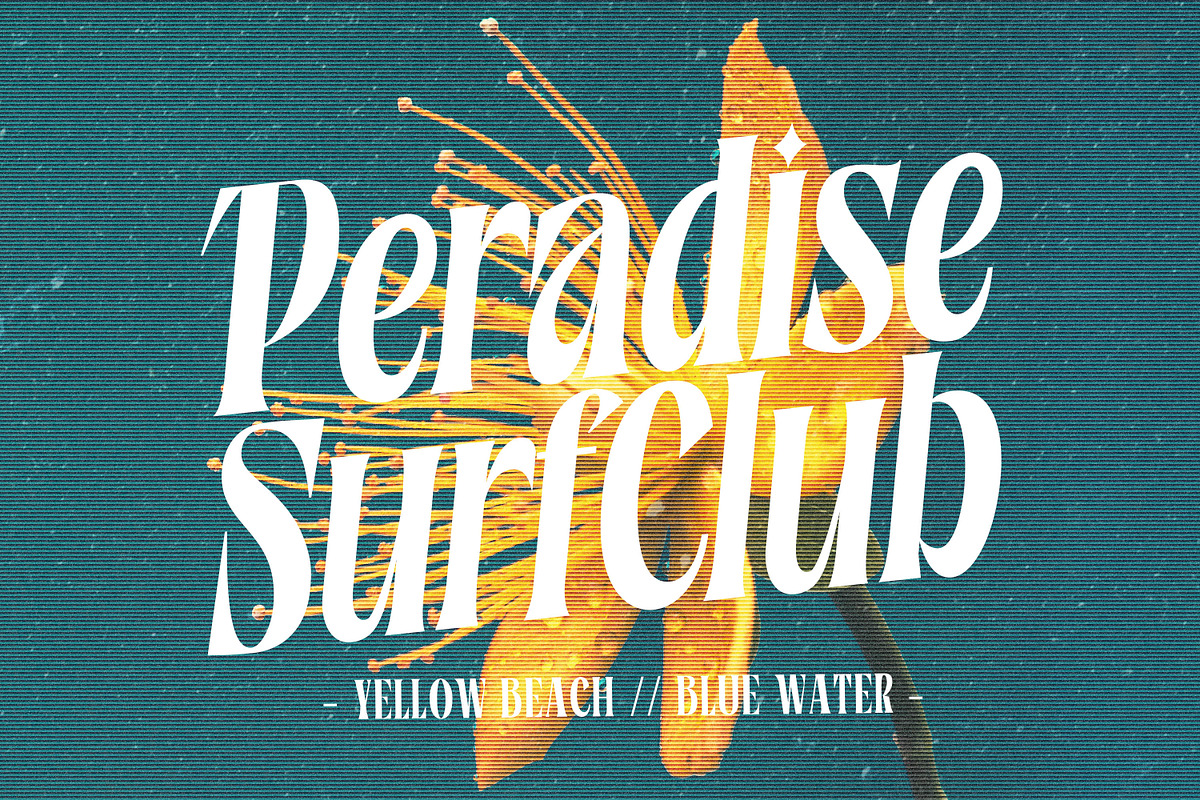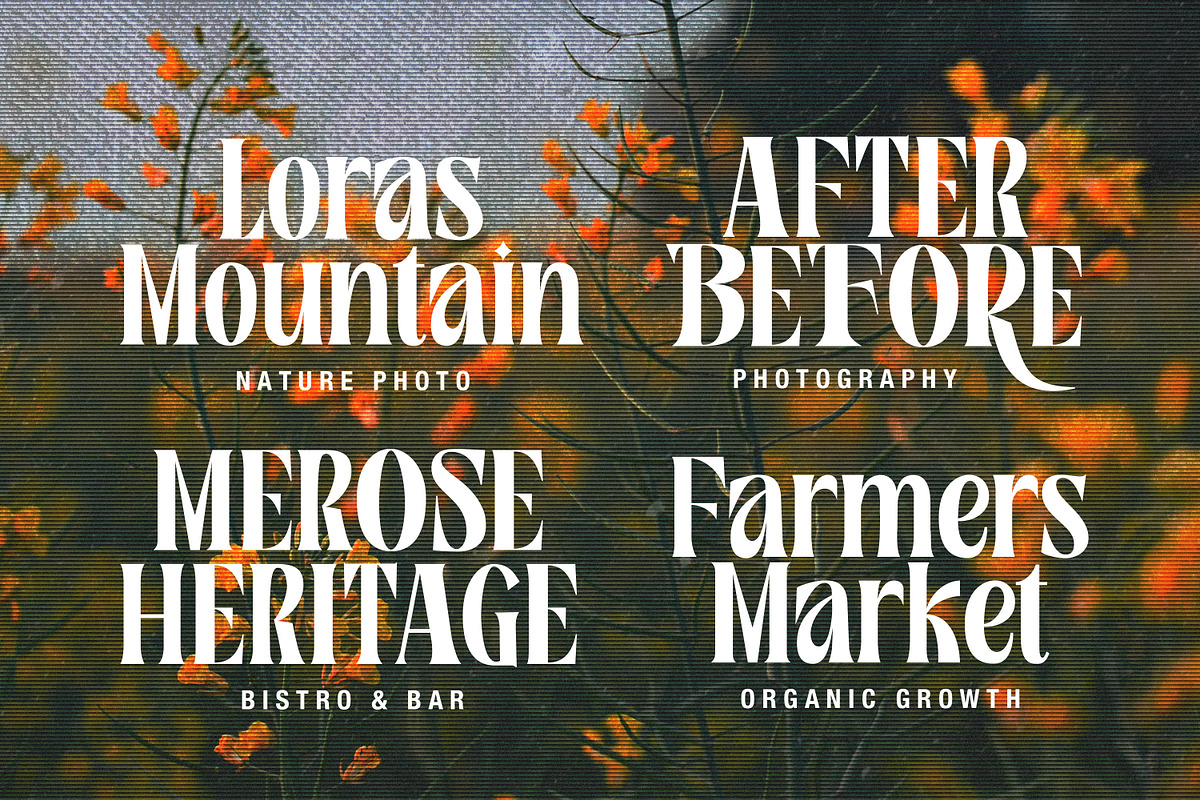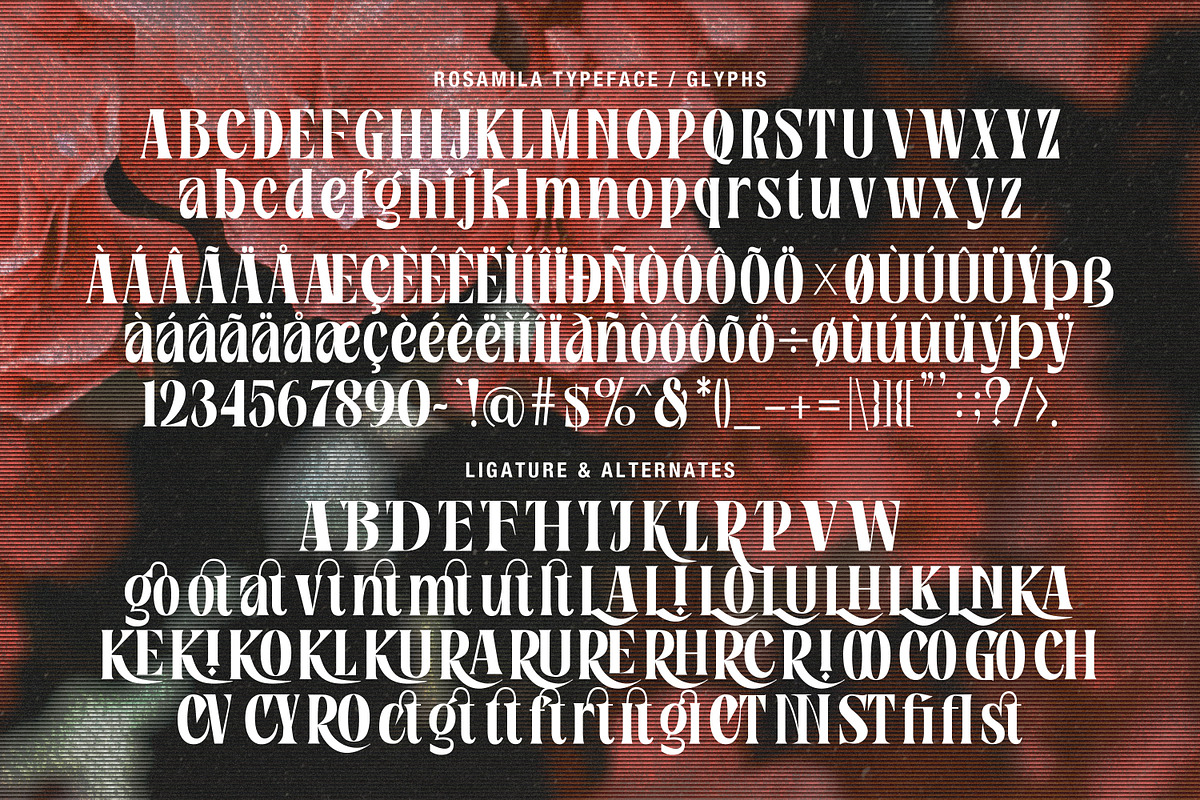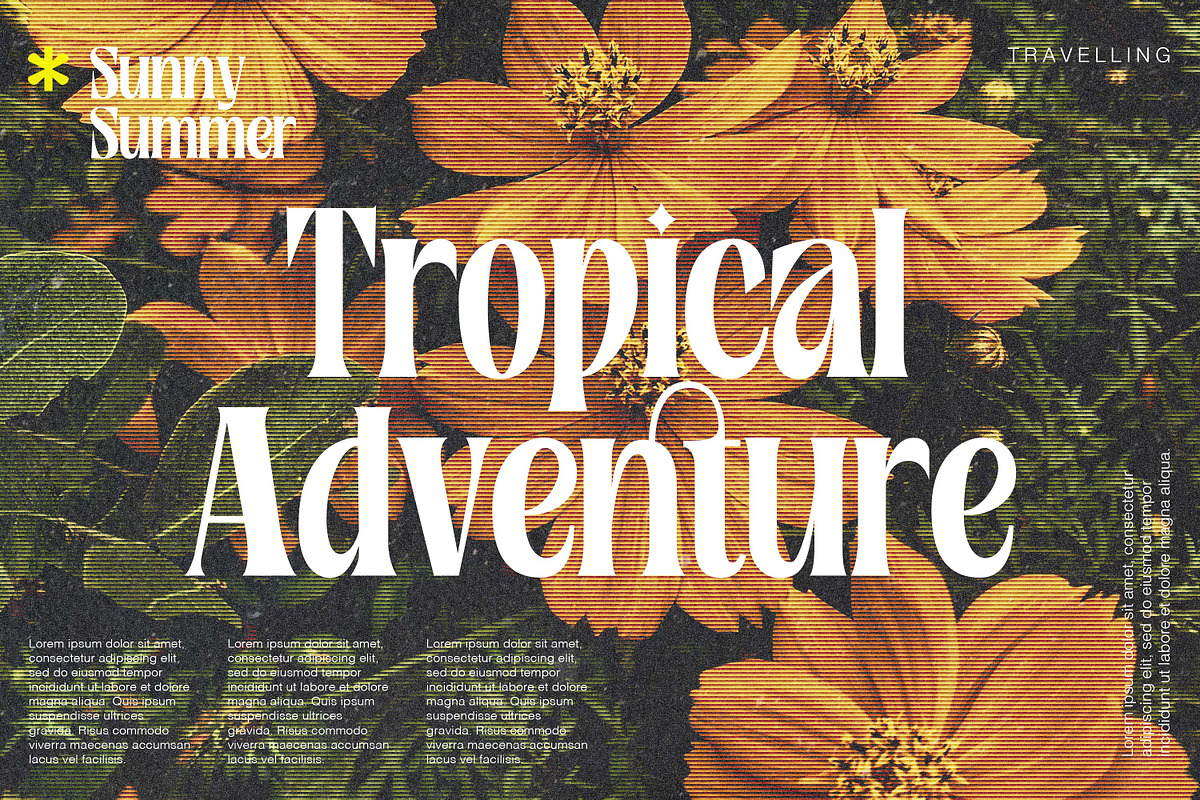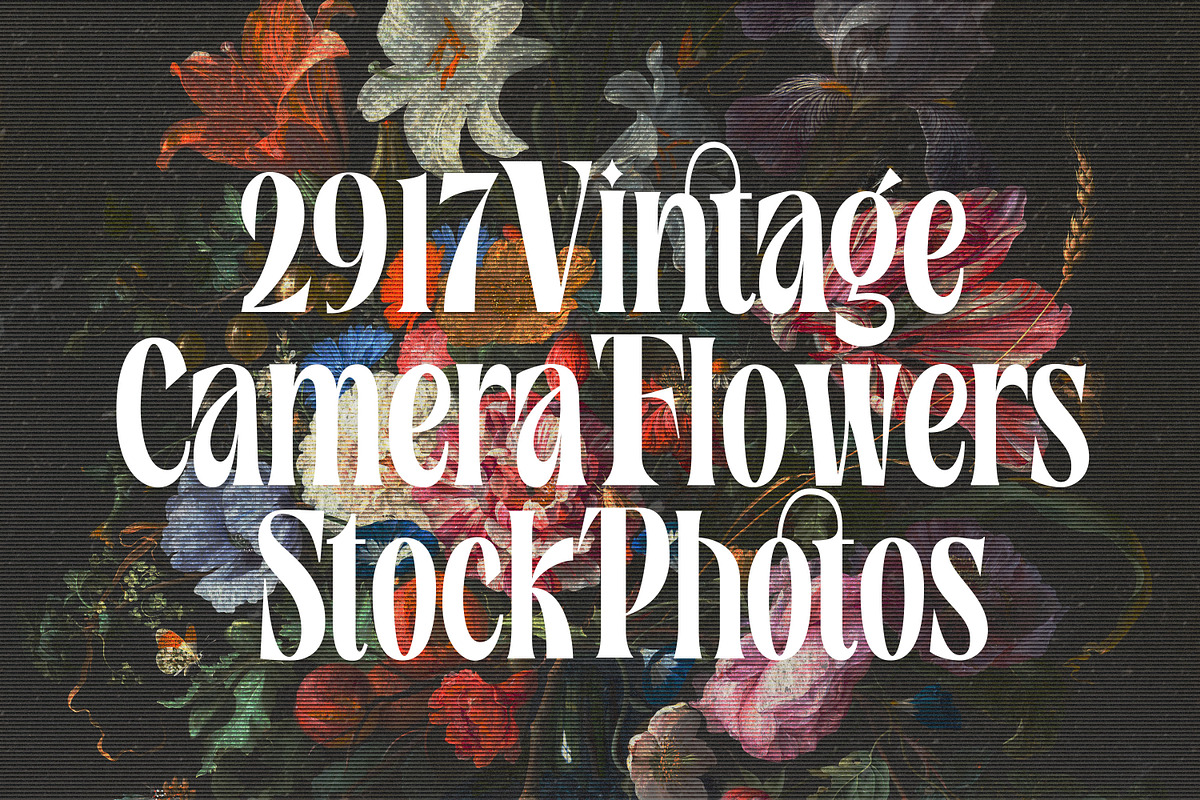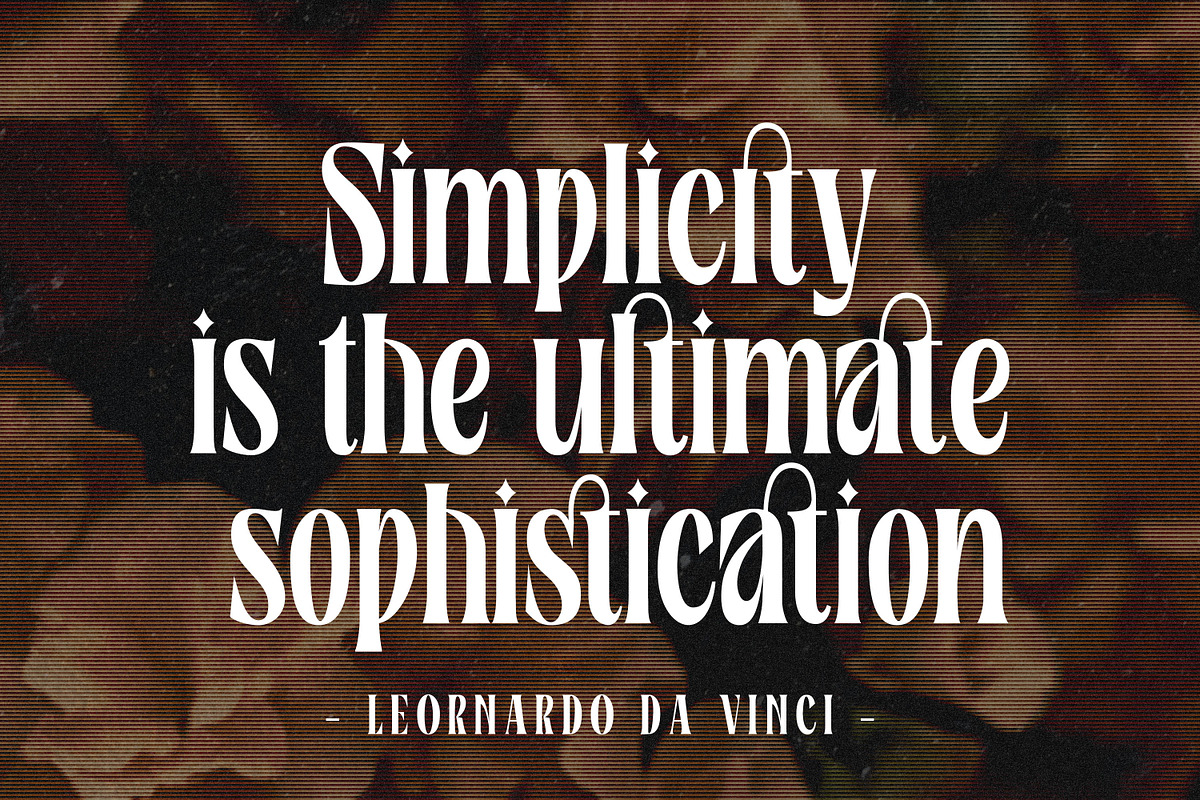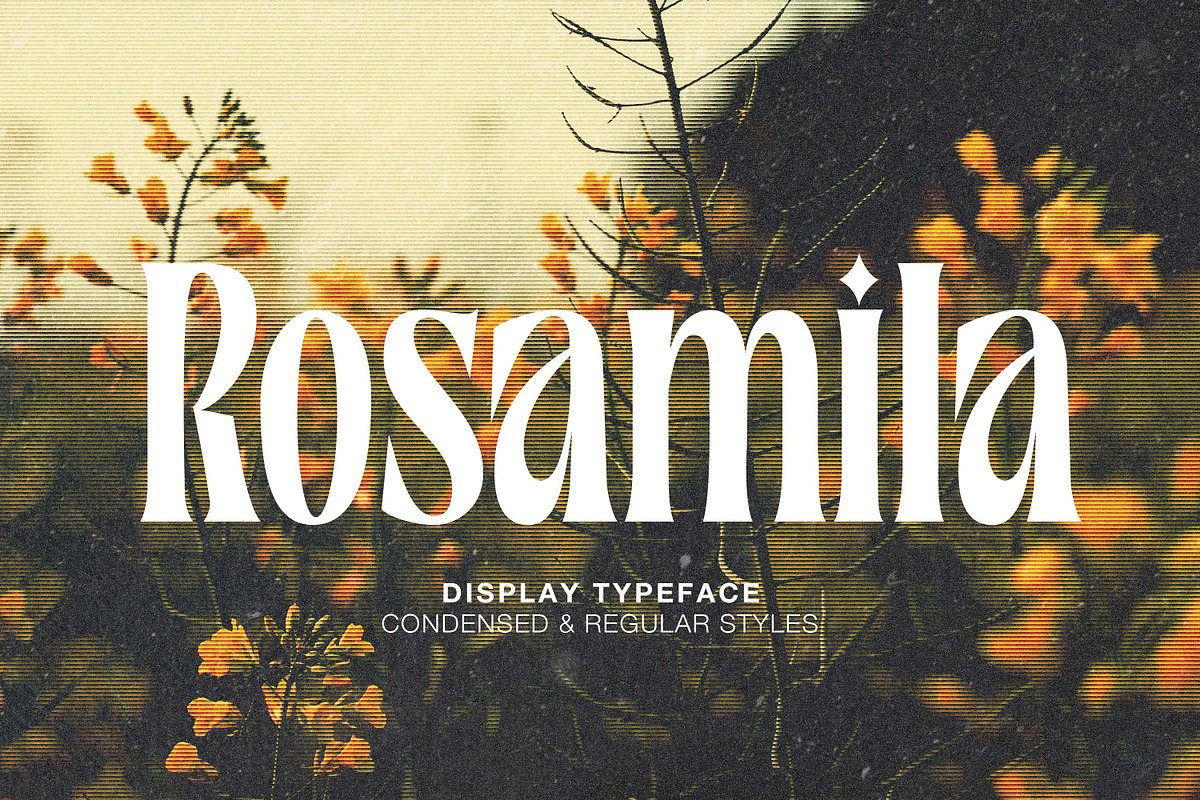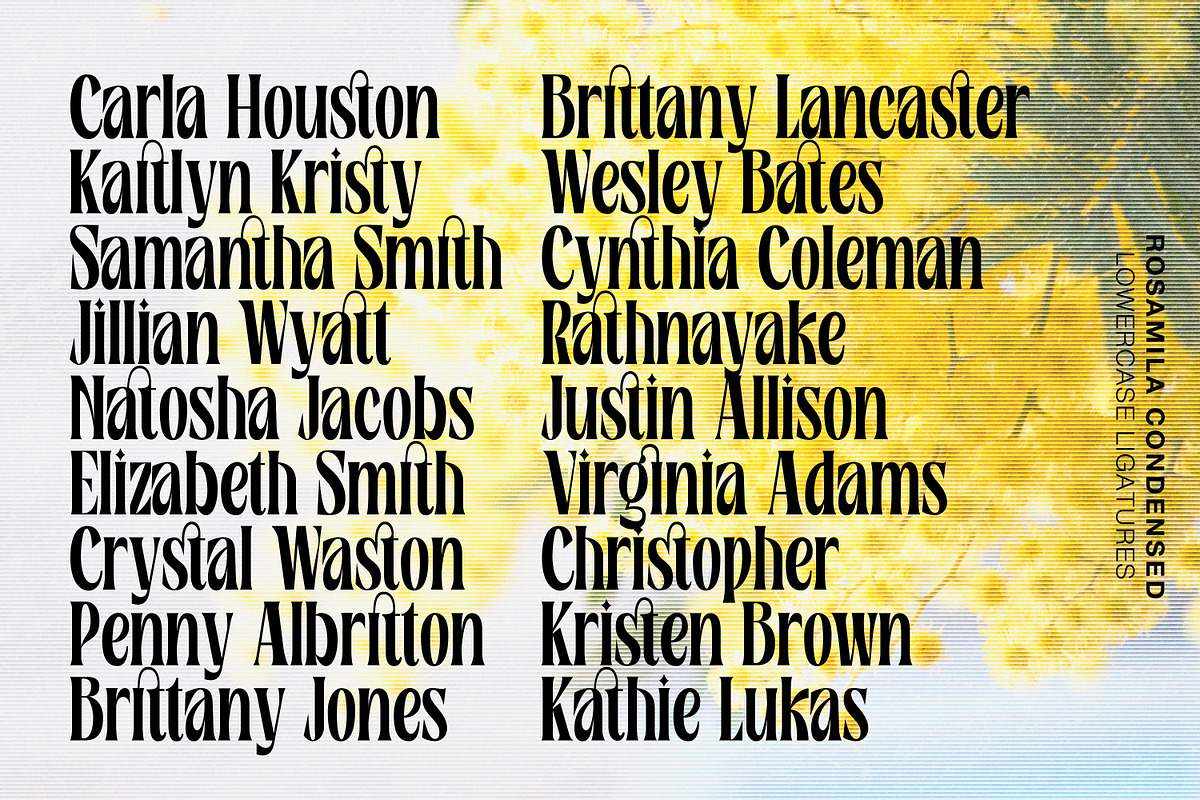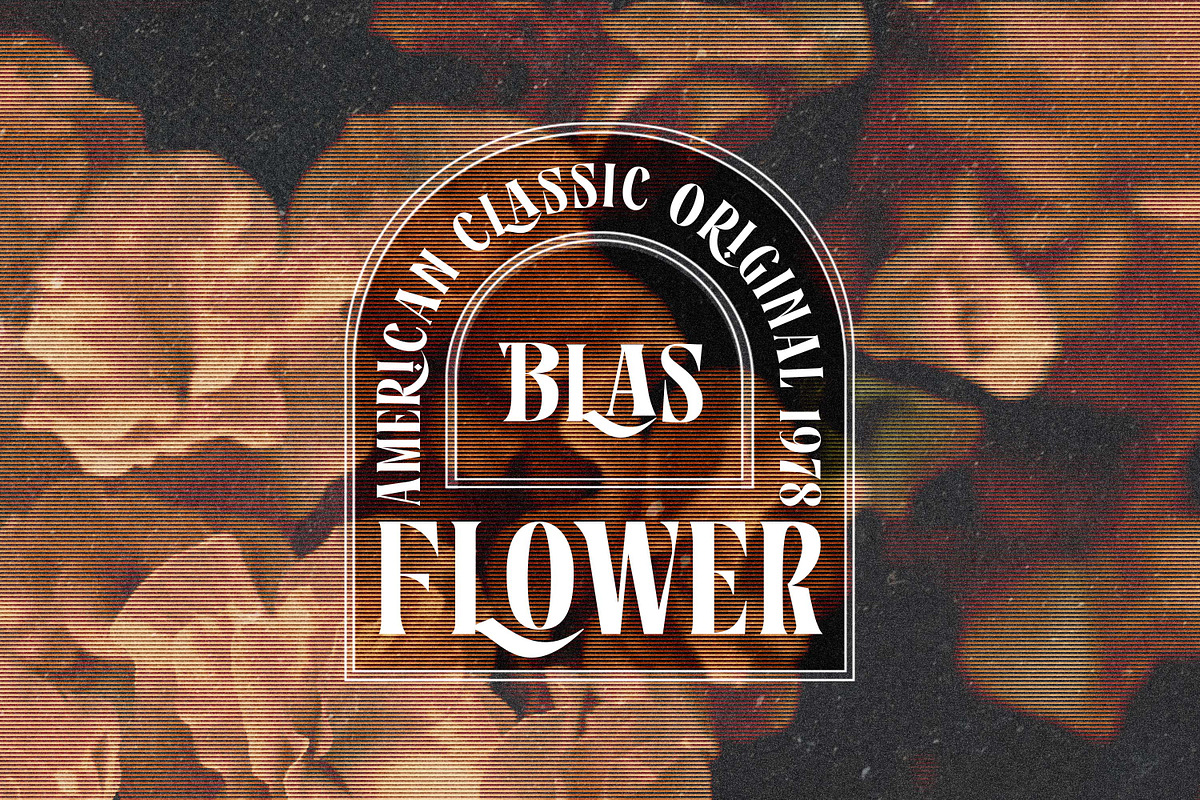
Rosamila Display
Rosamila Display is a stylish serif with beautiful ligatures. Available in two styles: Condensed and Regular styles. all in love with its incredibly versatile style. Use it to create gorgeous wedding invitations, beautiful stationary art, eye-catching social media posts, and much more! To access the Opentype Ligatures you will need software that supports Opentype features in fonts and also PUA unicodes support for other software.